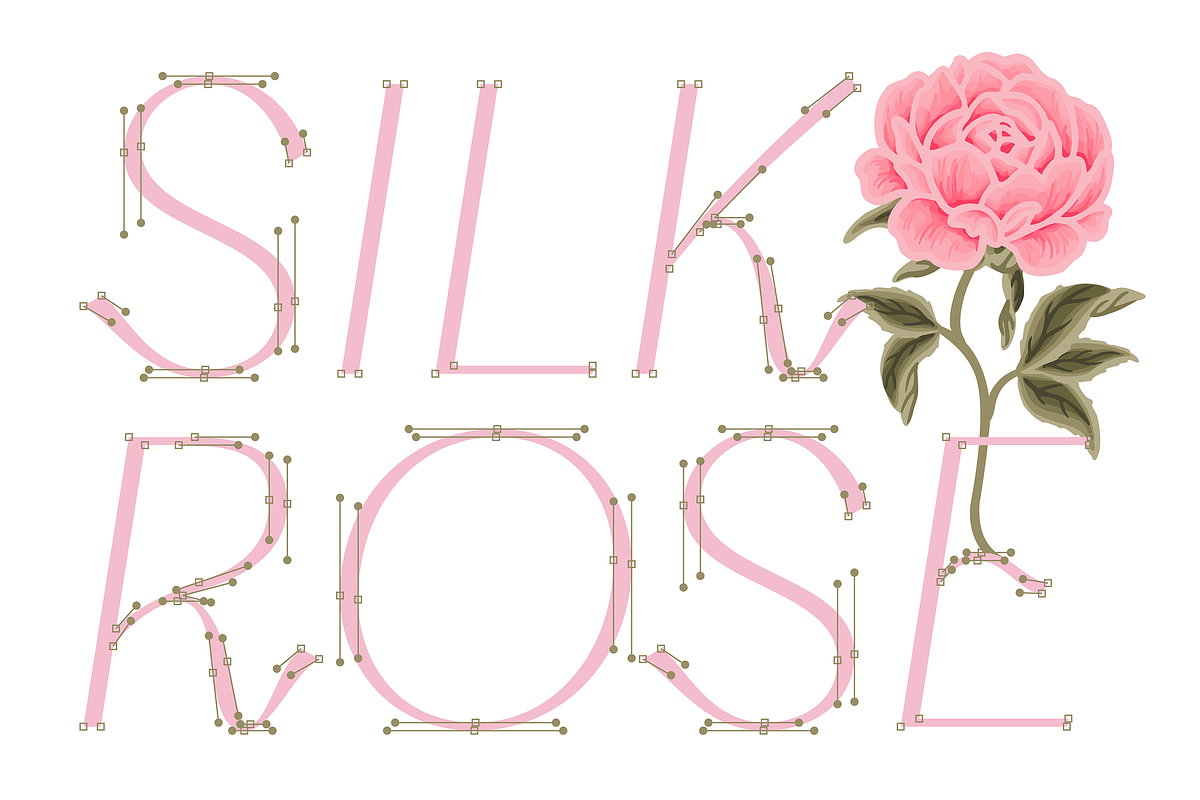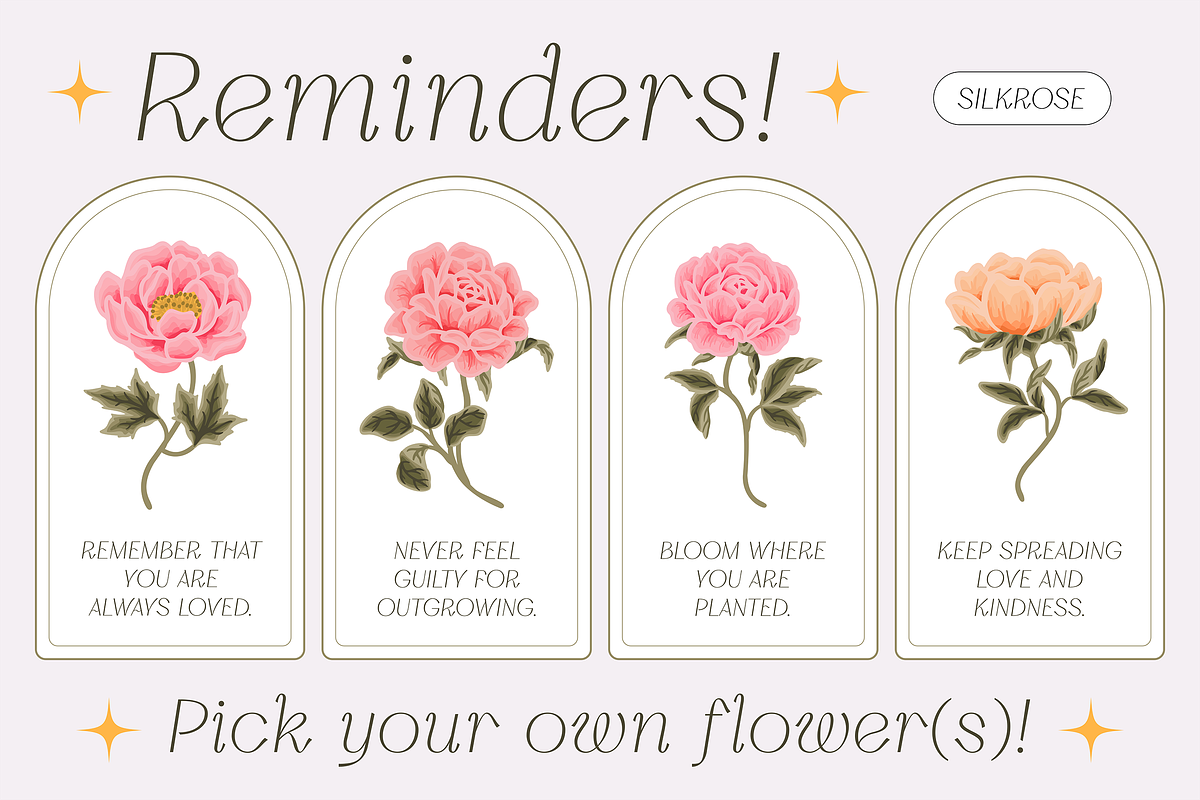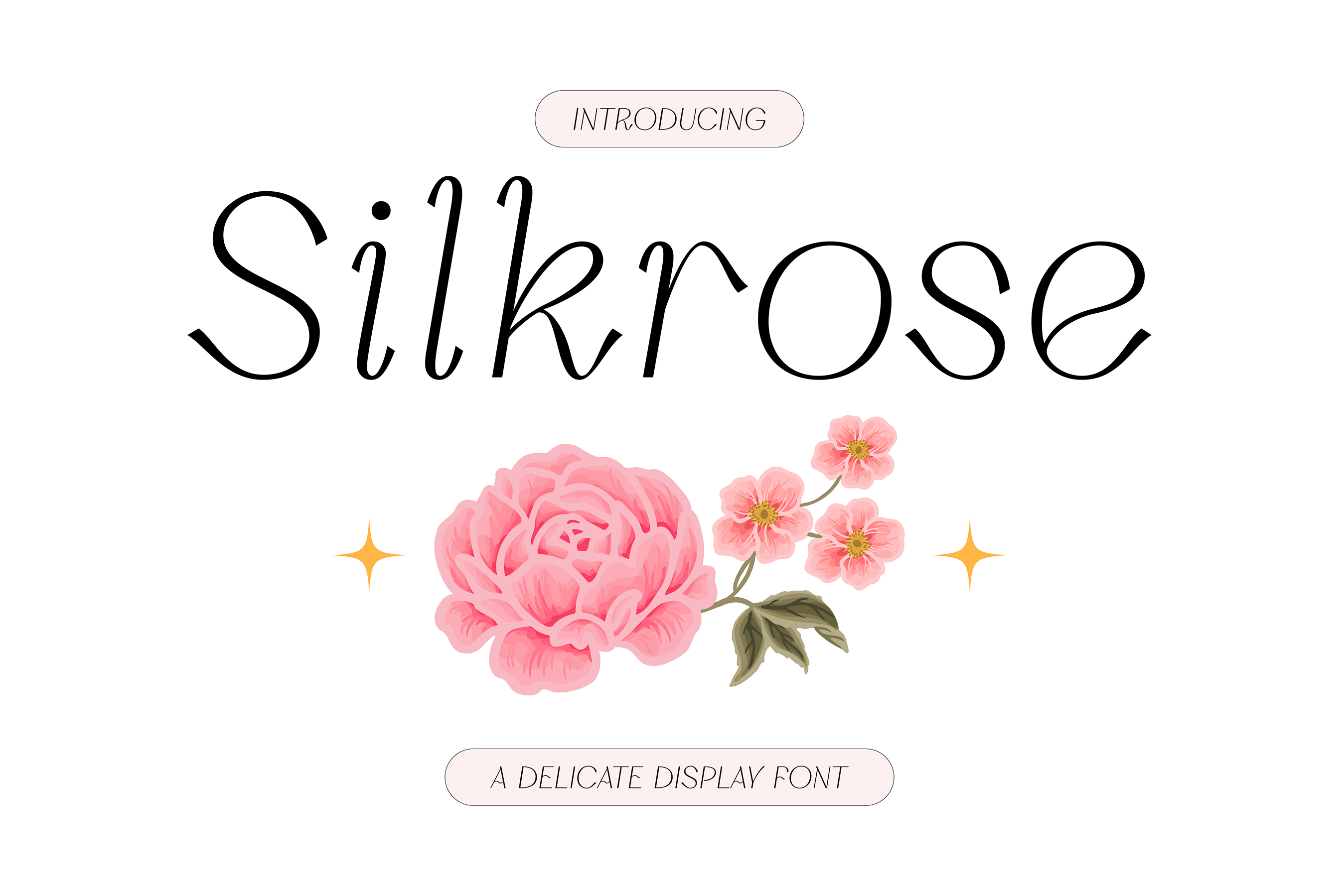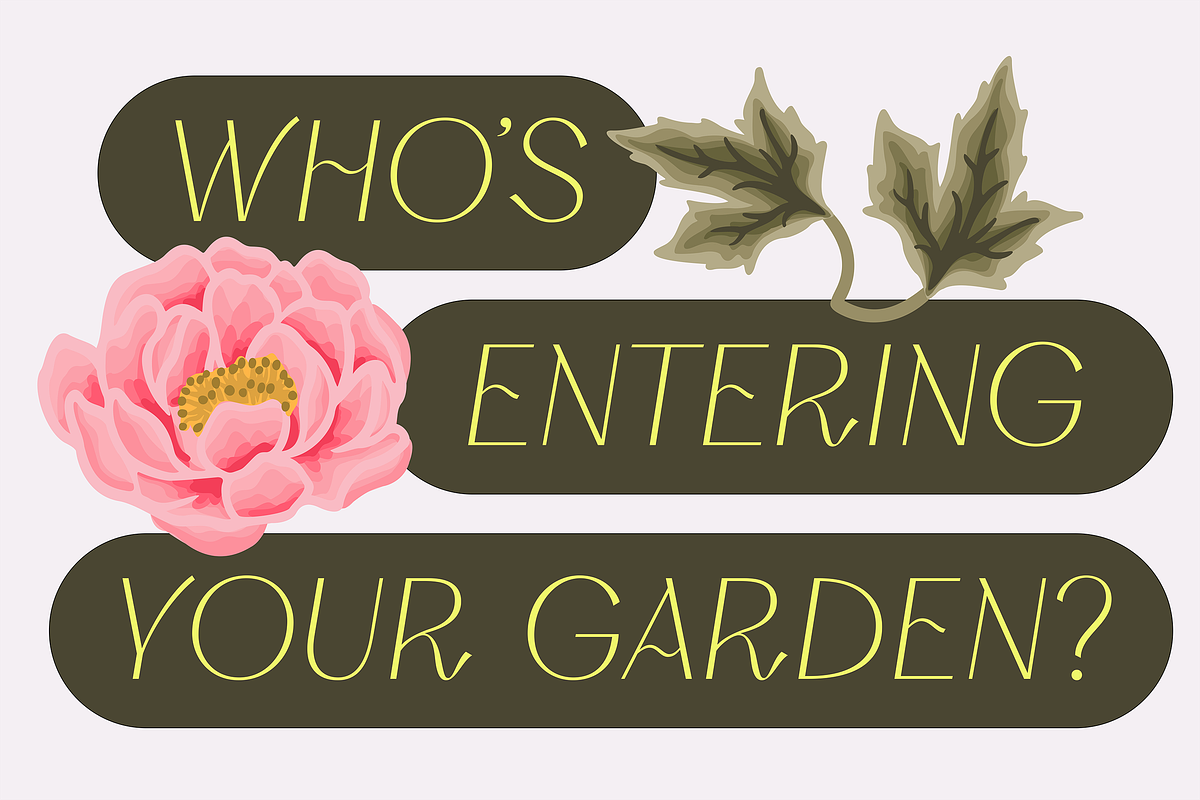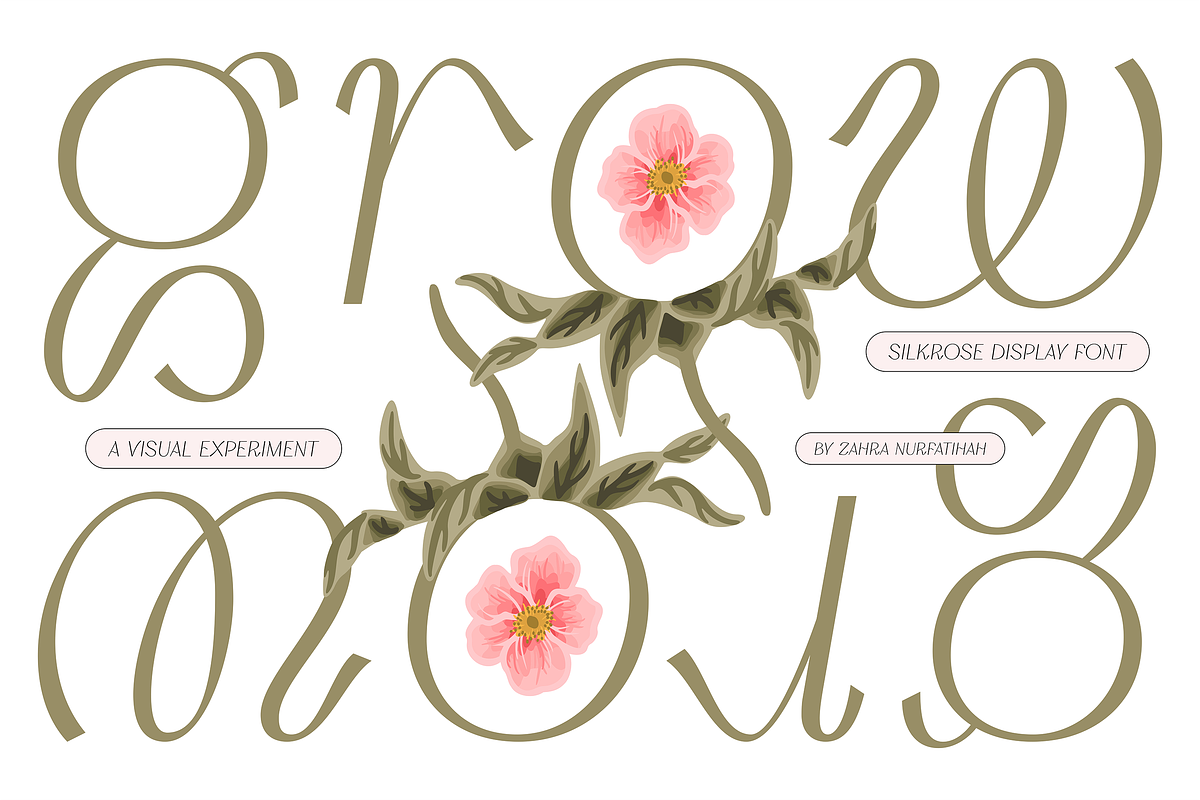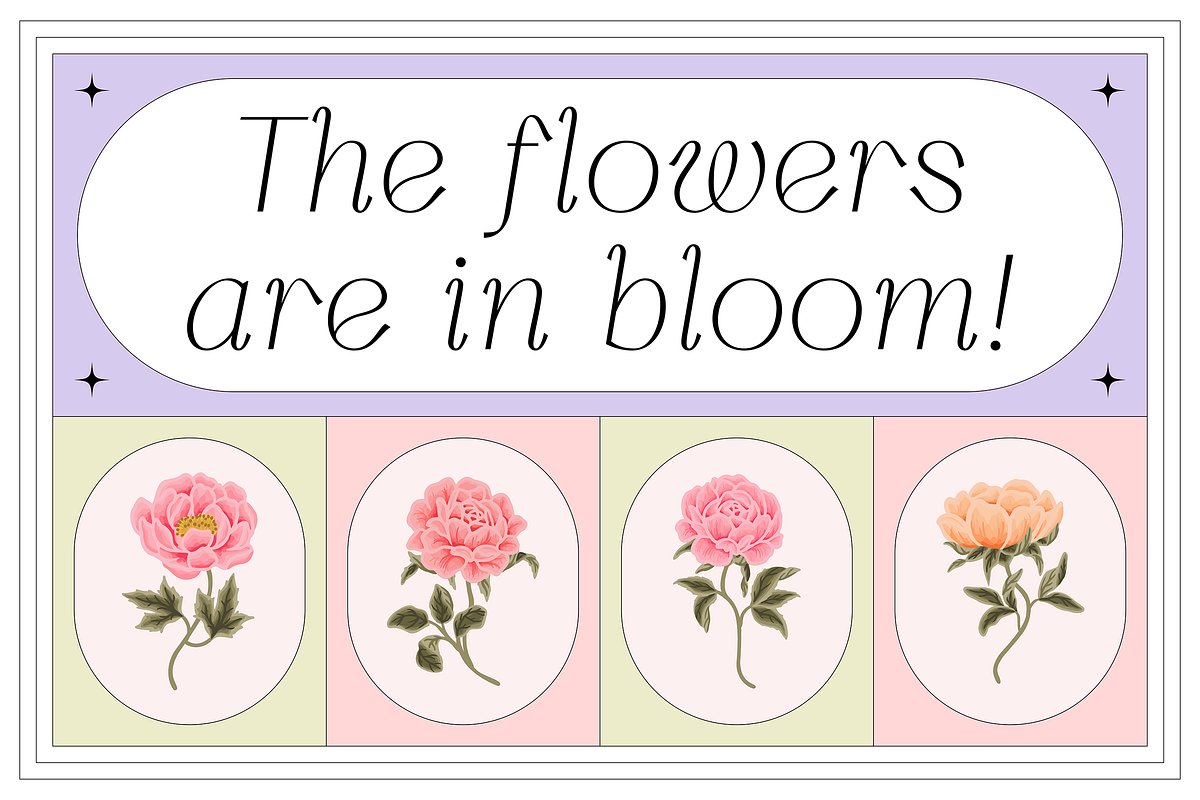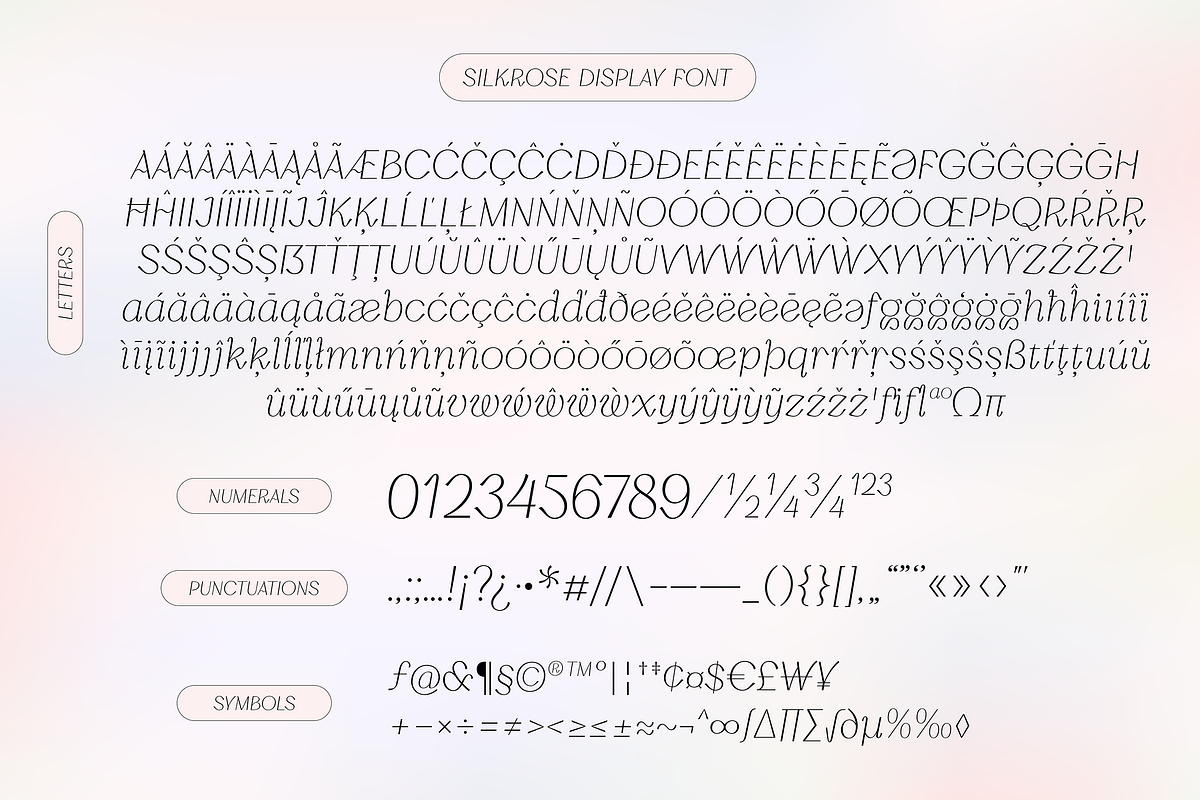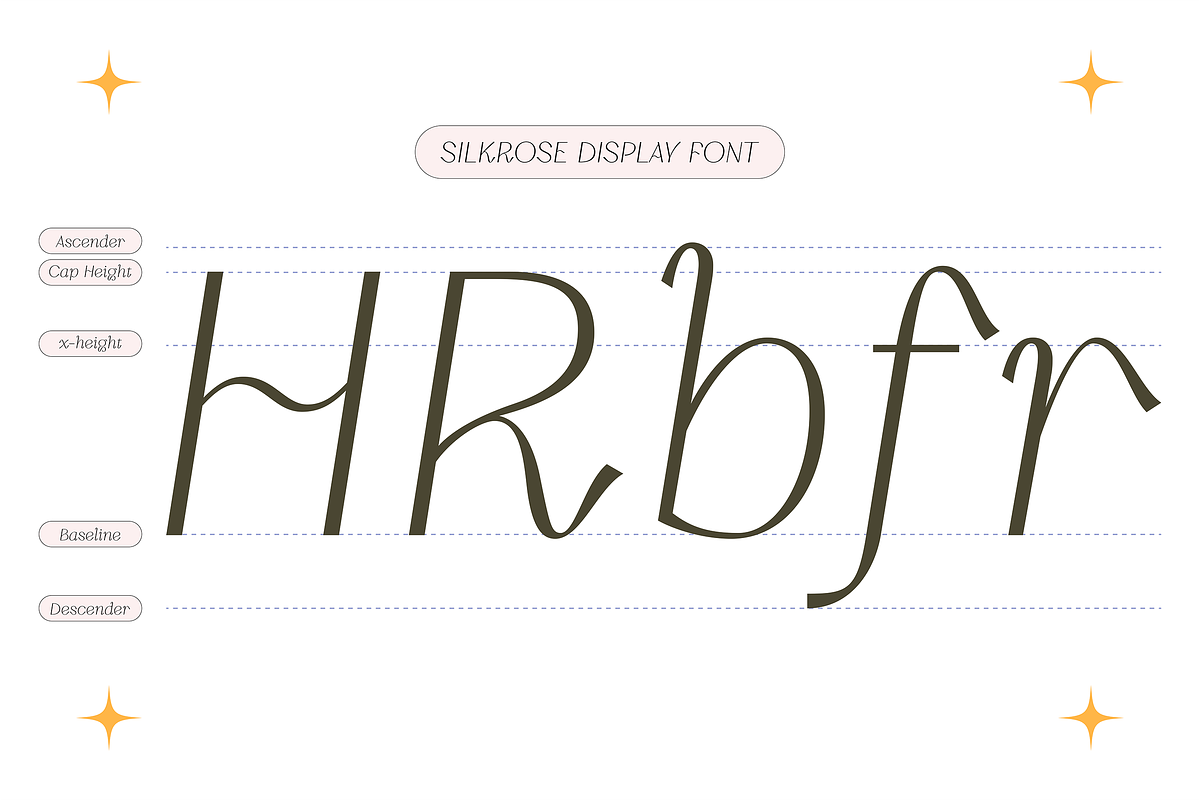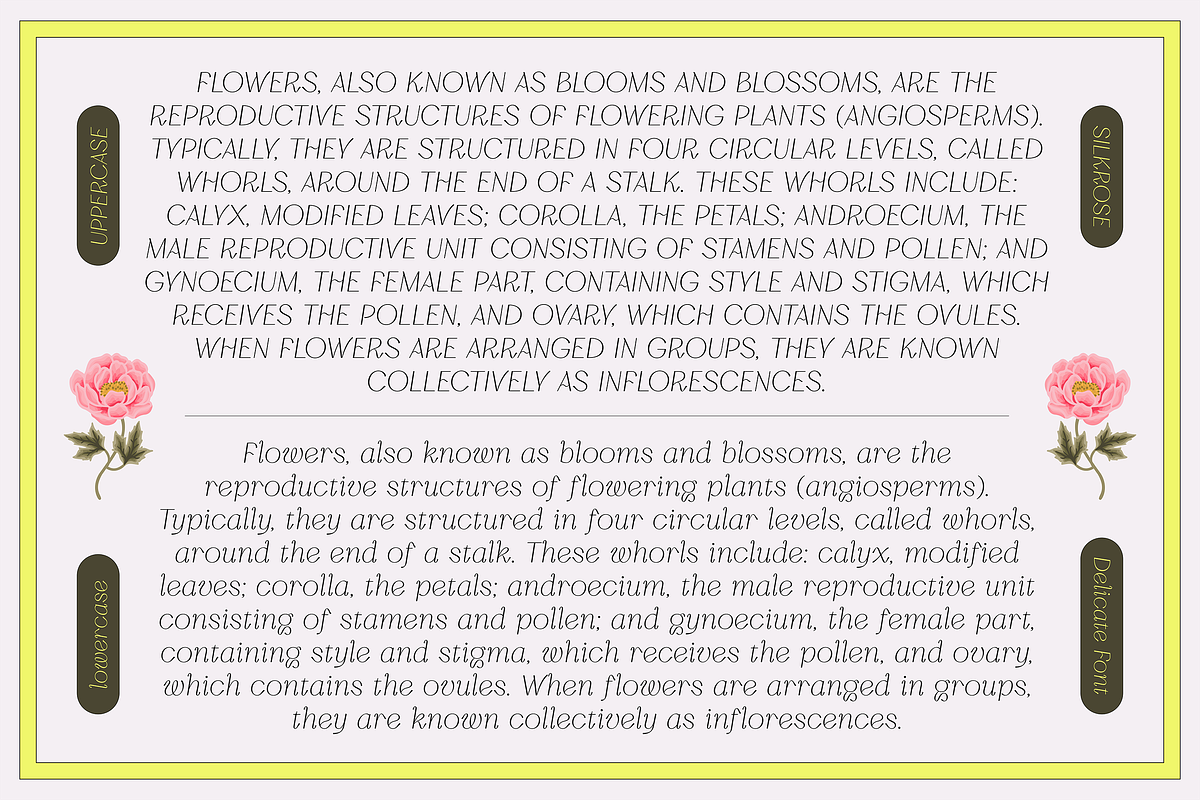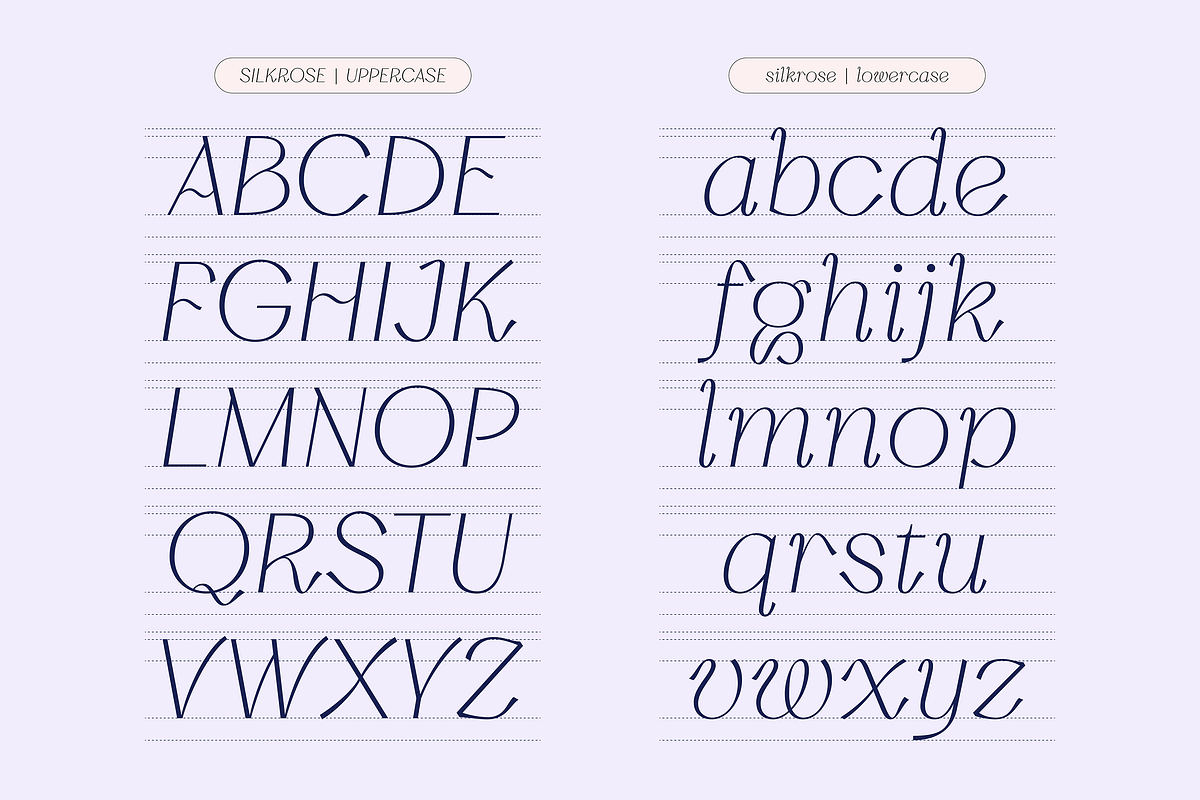
Silkrose - Delicate Display Font
Silkrose is a display sans serif italic font, leaning softly forward with delicate structure. This font is intentionally designed with single thin weight to capture the imagery, beauty, and softness of a small field full of flowers. Suitable for invitations, greeting card, poster, website design, branding, identity, app, menu, feminine products, advertising, logotype, letter, and more.